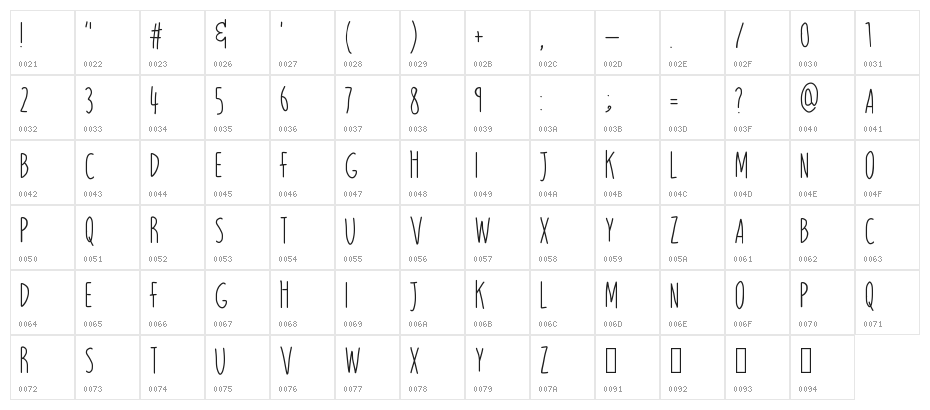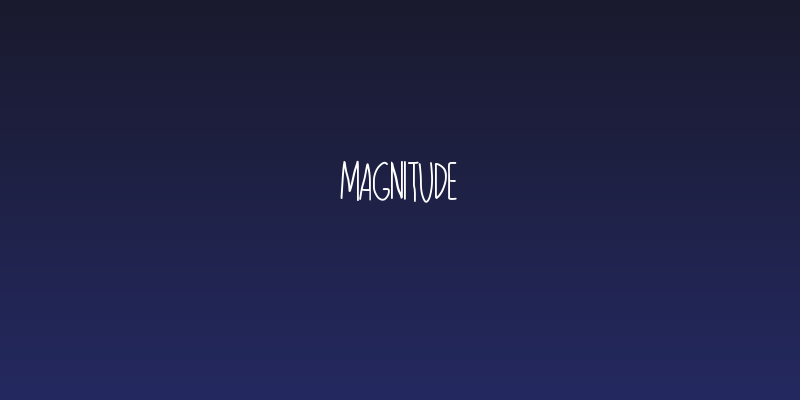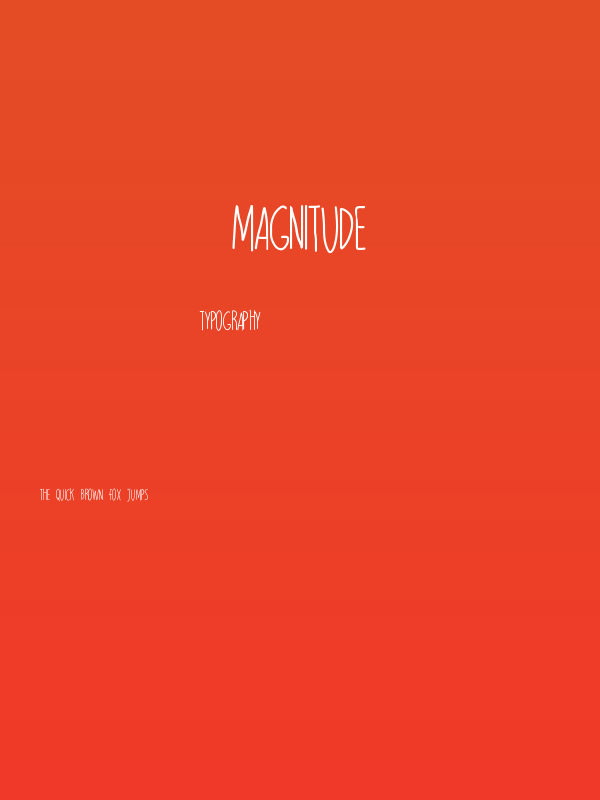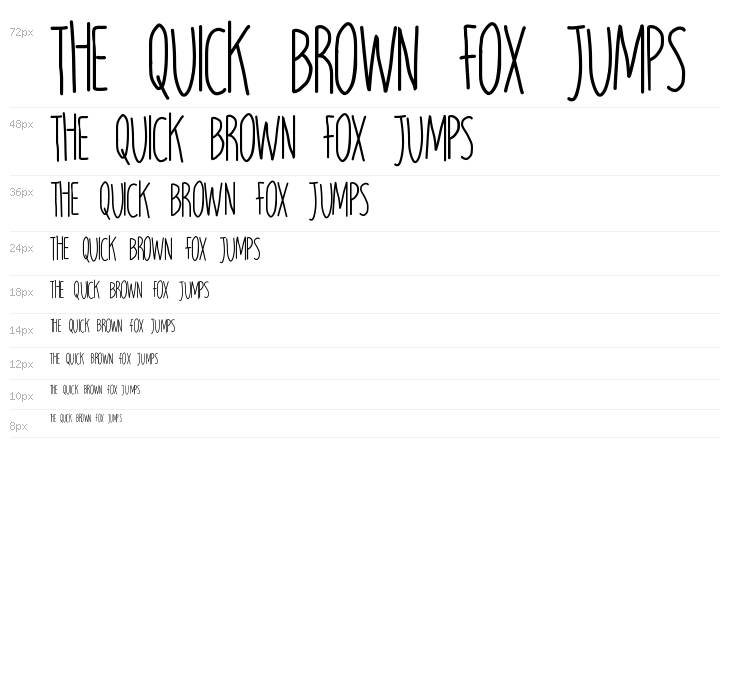
MAGNITUDE Font
MAGNITUDE Description
This font features a playful and informal handwritten style, characterized by tall, narrow letters with a slight tilt, giving it a dynamic and lively appearance. The strokes are consistent in width, providing a uniform look across all characters. The uppercase and lowercase letters maintain a cohesive style, with rounded edges and a casual flair. Numbers and special characters are designed to match the overall aesthetic, ensuring versatility in various applications. The font's unique personality makes it suitable for creative projects that require a touch of whimsy and individuality.
| Proposed Projects | Ideal for greeting cards, children's books, playful branding, and social media graphics. |